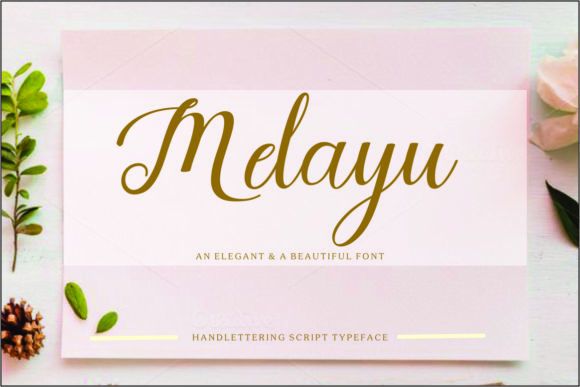
Introducing Melayu Script Font - a visual masterpiece that will captivate your senses and bring your creative visions to life. Step into a world of elegance and sophistication as Melayu Script graces your designs with its alluring charm. This modern script font, meticulously crafted by InkwellTypeCo, is a symphony of flowing lines and graceful curves, where every letter dances with an elongated connection model, creating a visual symphony that will leave you spellbound.
With Melayu Script, your words are transformed into art. Its delicate strokes and enchanting style are perfect for adding a touch of personal flair to wedding invitations, greeting cards, and posters. It's perfect for capturing the essence of special moments, leaving a lasting impression that will be cherished for years to come.
Beyond the world of personal expression, Melayu Script shines in the realm of business. Let your business cards radiate with professionalism and elegance as they showcase your brand's message in a truly unique way. Quotes and blog headers come alive with a new aura of inspiration, captivating your audience with a visual experience that complements and enhances your written words.
Explore the boundless possibilities of Melayu Script in the world of branding and logos. Its versatile nature allows it to adapt seamlessly to various industries, from fashion and clothing to stationery and more. Create a distinct brand identity that reflects your passion and stands out from the crowd.
Melayu Script isn't just a font; it's a creative journey that invites you to explore new horizons of expression. Whether you're a seasoned designer or just starting your creative voyage, Melayu Script empowers you to bring your ideas to life with beauty and finesse. Let your imagination run wild as you craft stunning designs that tell a story and leave a lasting impact.